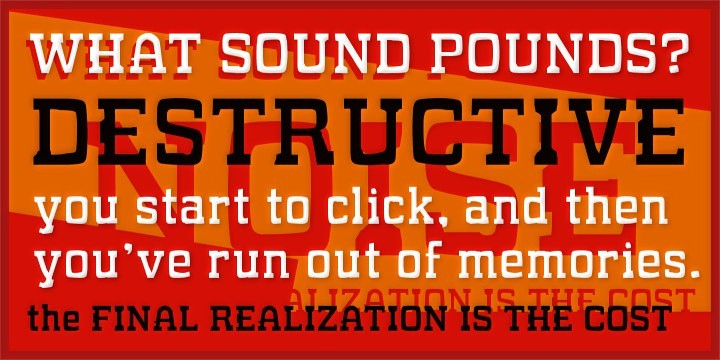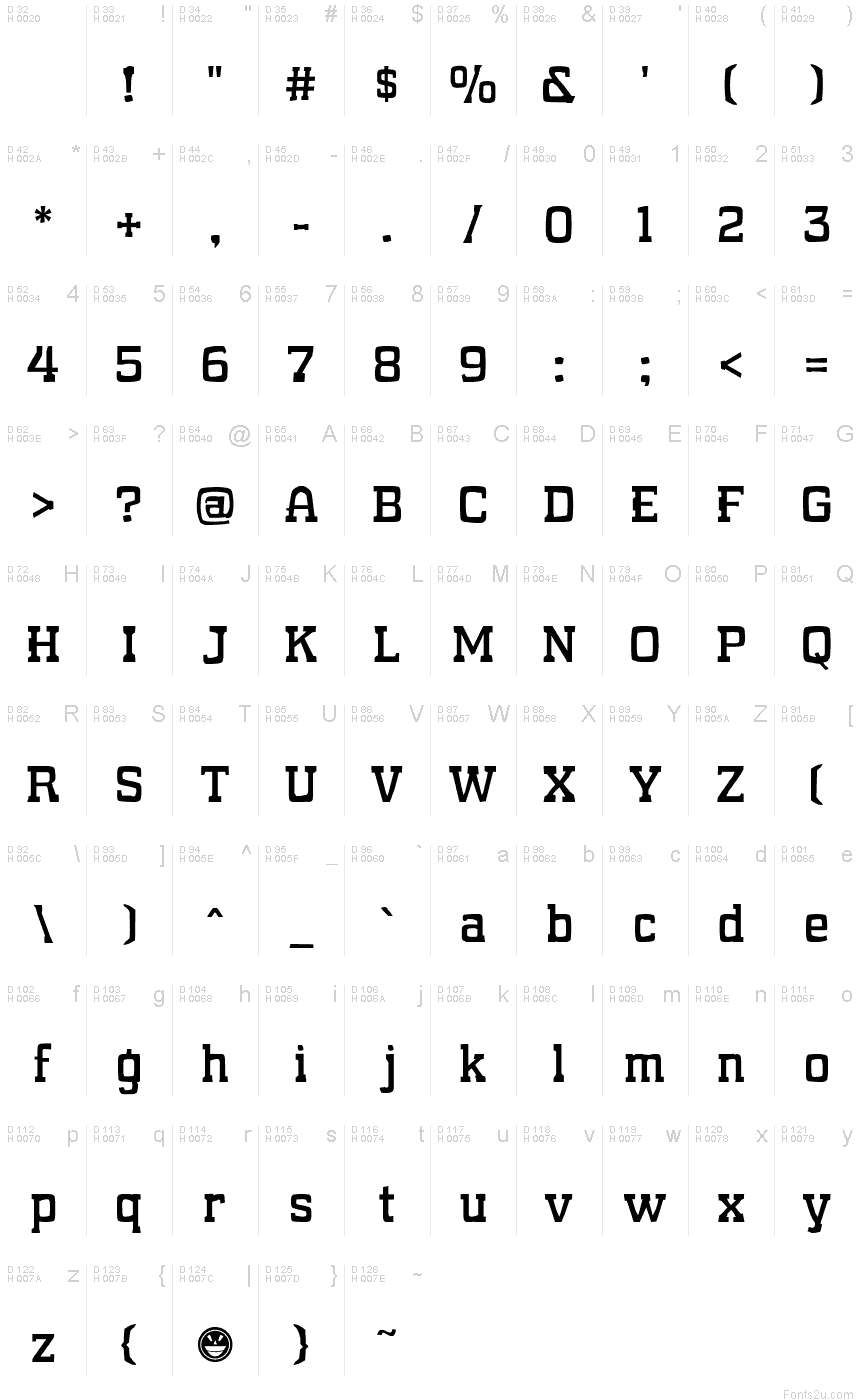
WHAT SOUND POUNDS? Normal
You'll want to call it many things. You'll swear it's a sport font in distress. You'll imagine it emblazoned on the flanks of battered starships. You'll wonder what niche, what genre it was ever meant to occupy. Is it a display font? Text? Is that a noise in your ear? A sounding pound against your thoughts? Ask what you think of that sound and it's potential to melt you where you stand, and you'll find this very font staring back on you.